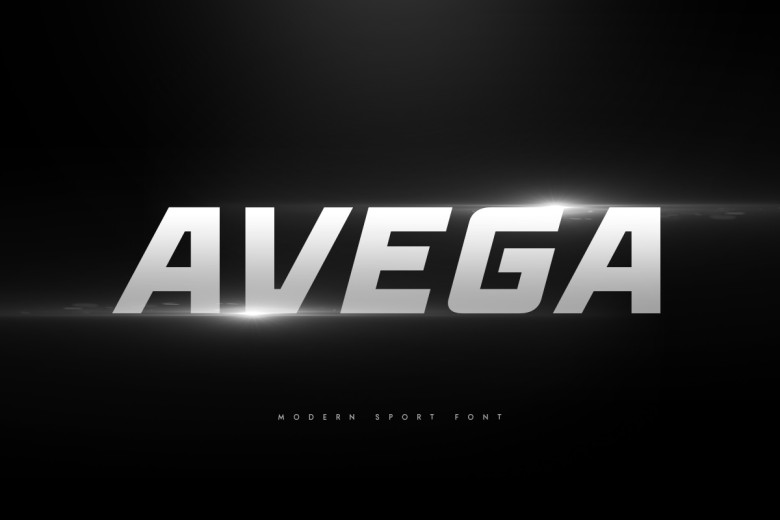
Avega Font
‘Avega’ is an athletic sport sans-serif font designed for branding and dynamic typography in headlines and titles. It also has a set of alternative styles which guarantee your designs will be memorable. It’s just great if you add your own style and headline description for sport, technology, action and war theme.
Especially for this font, we designed a kind of bold action and modern sensibility so that every project you create will be deliciously clear as the original idea itself.
Avega Sans Serif Font